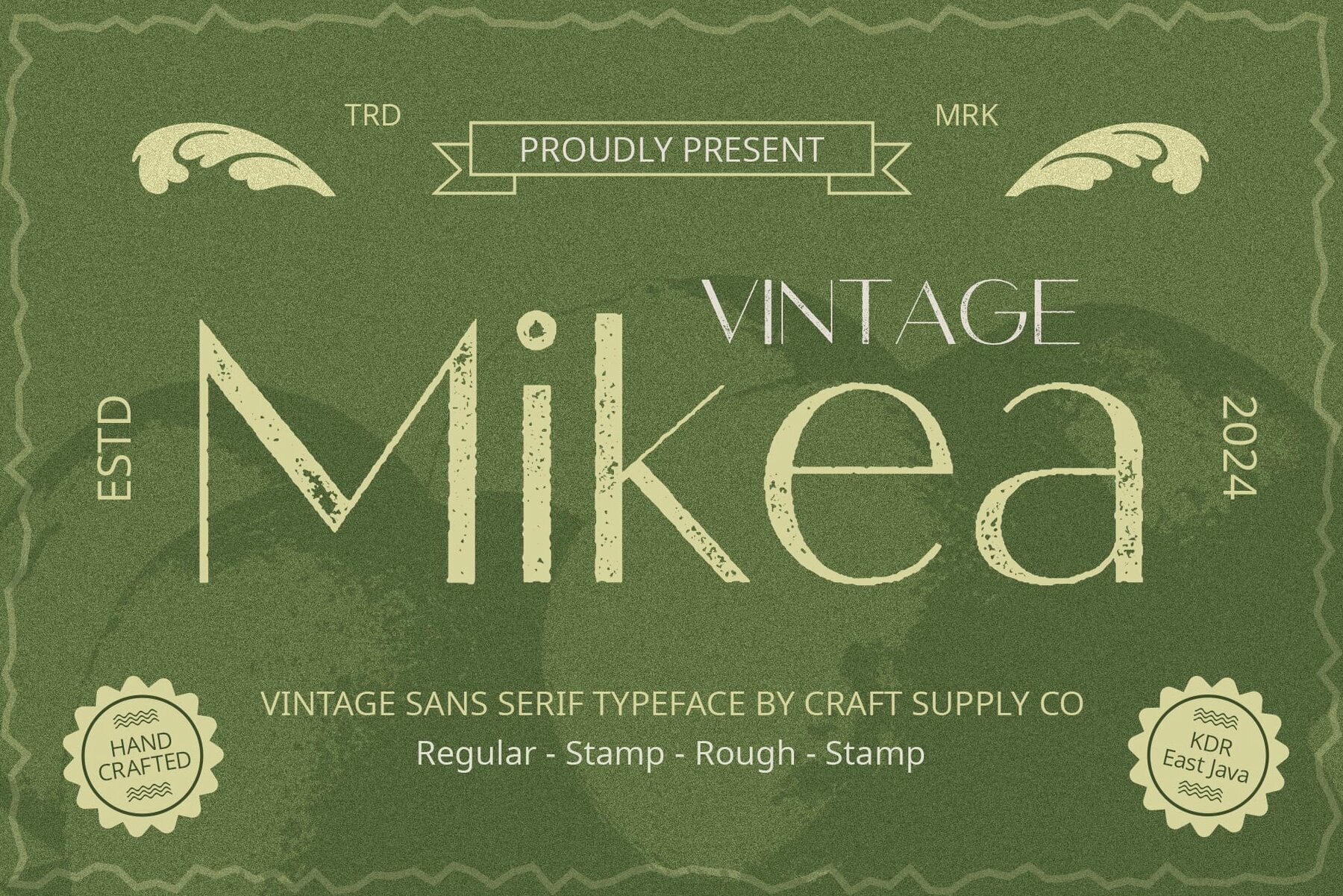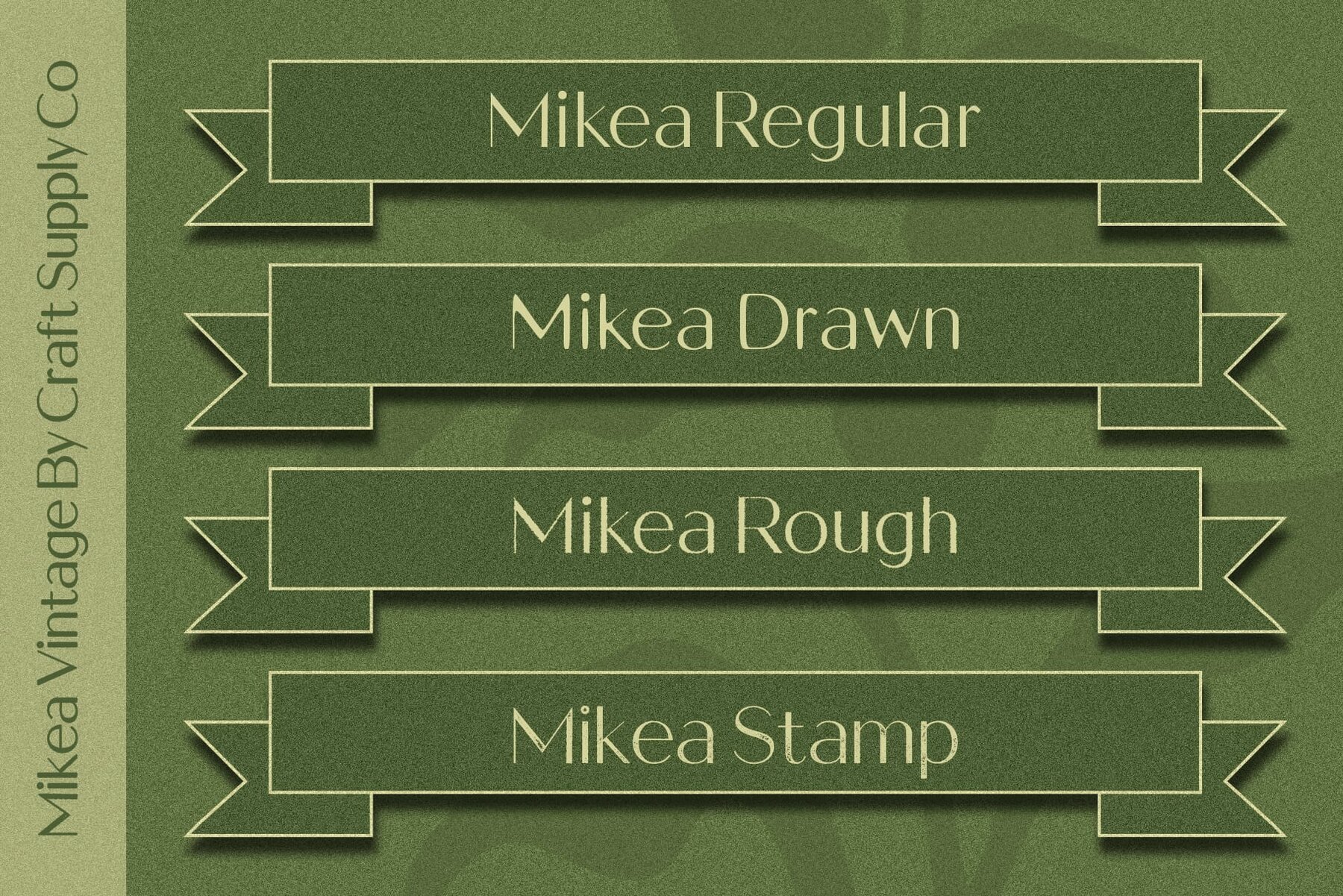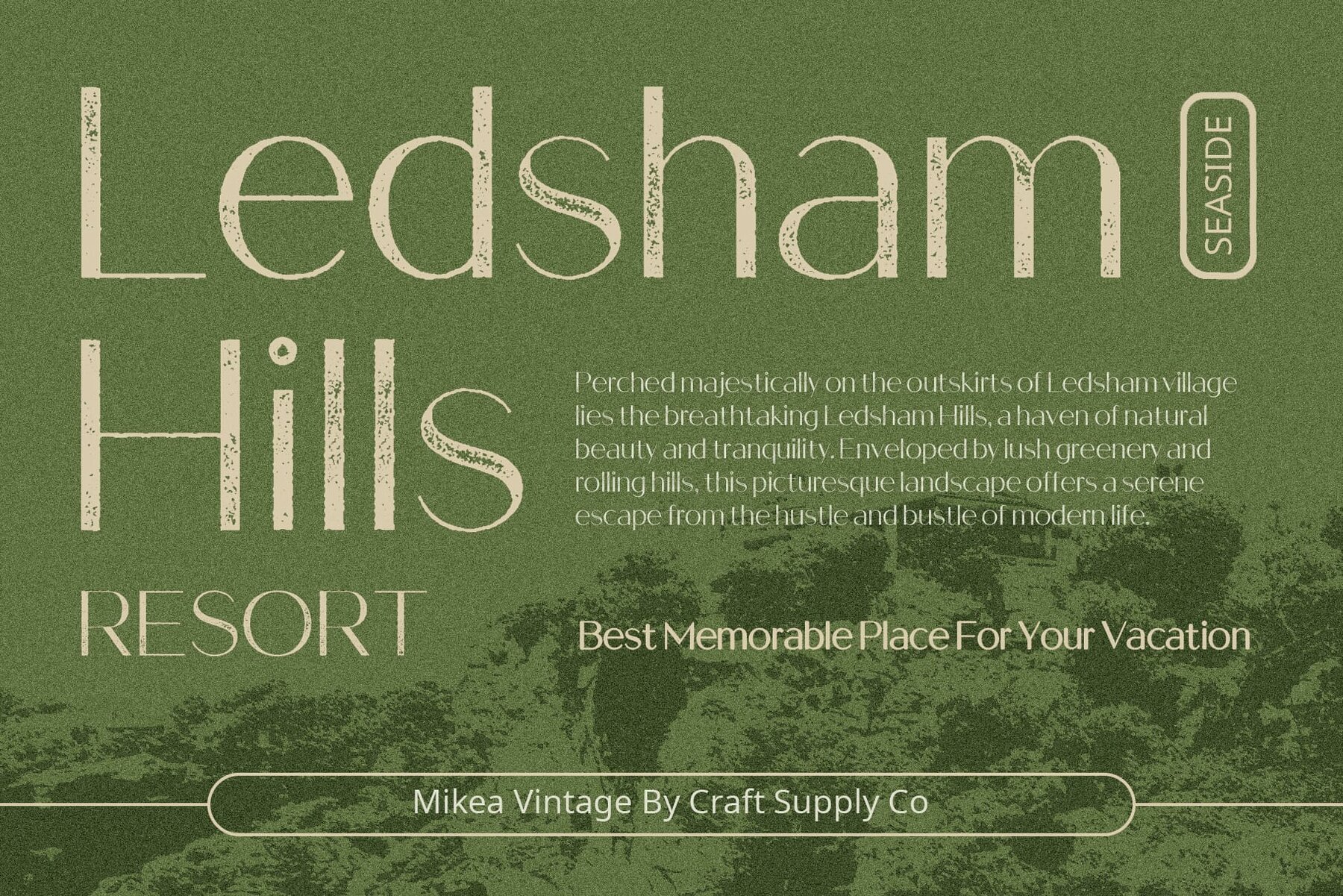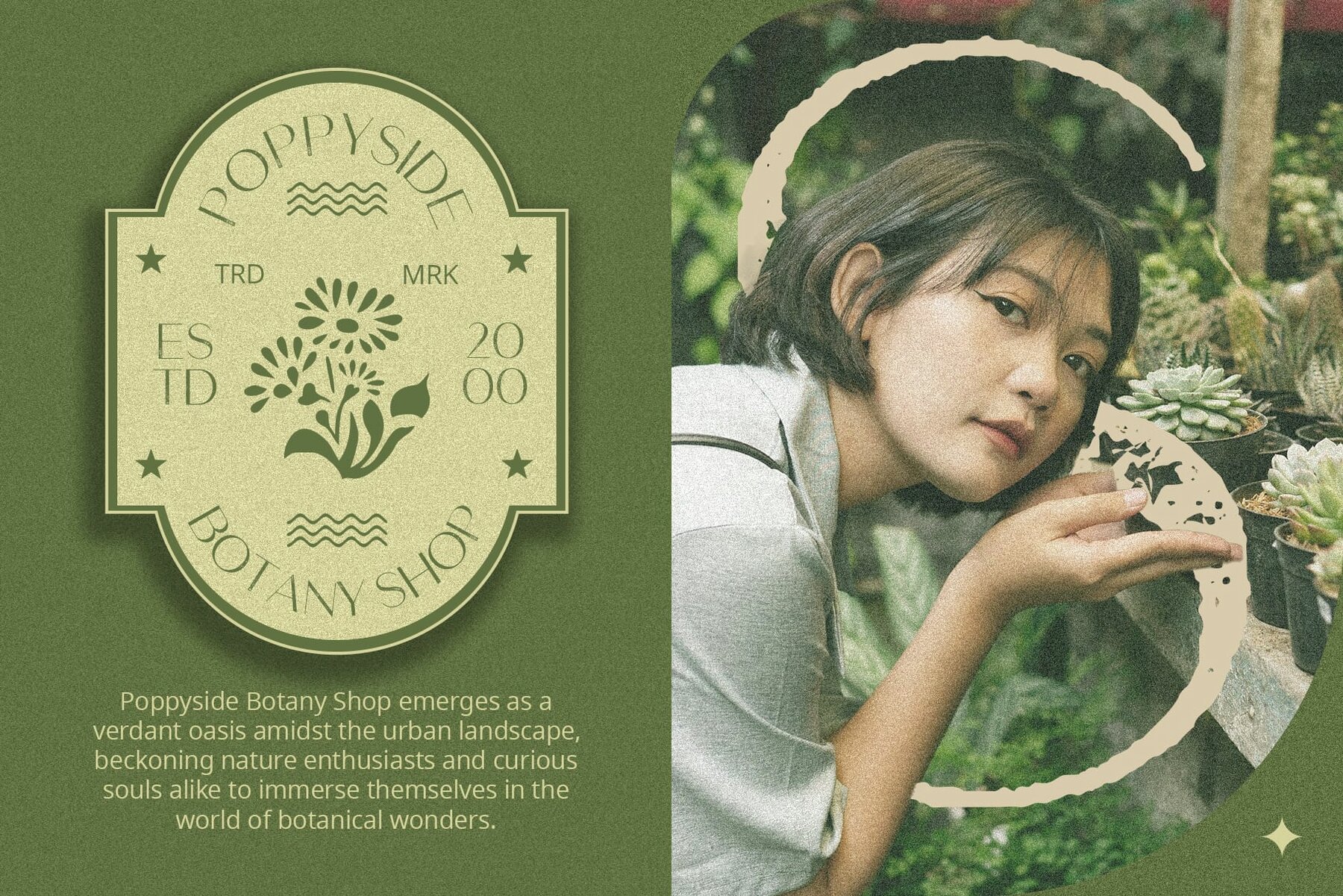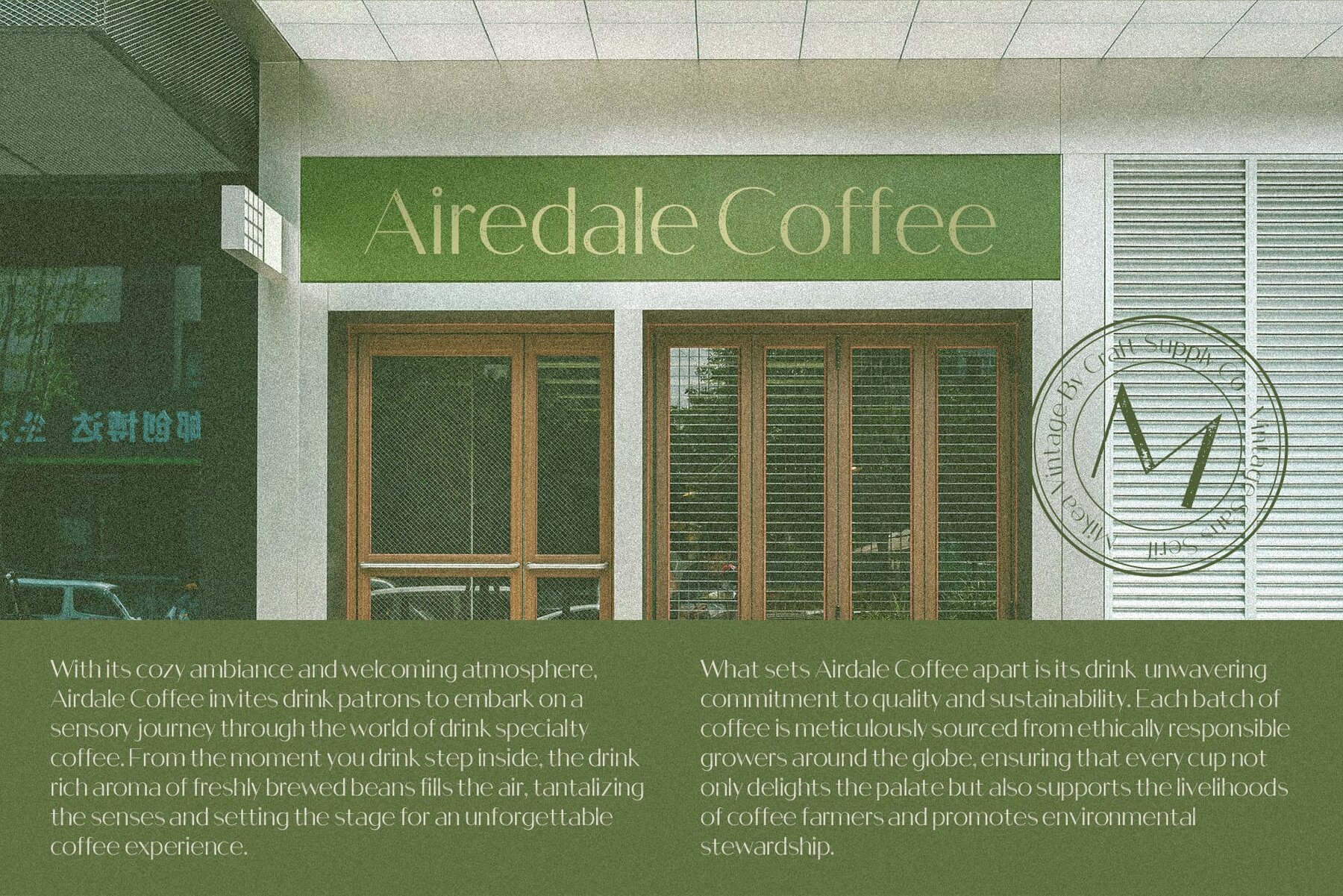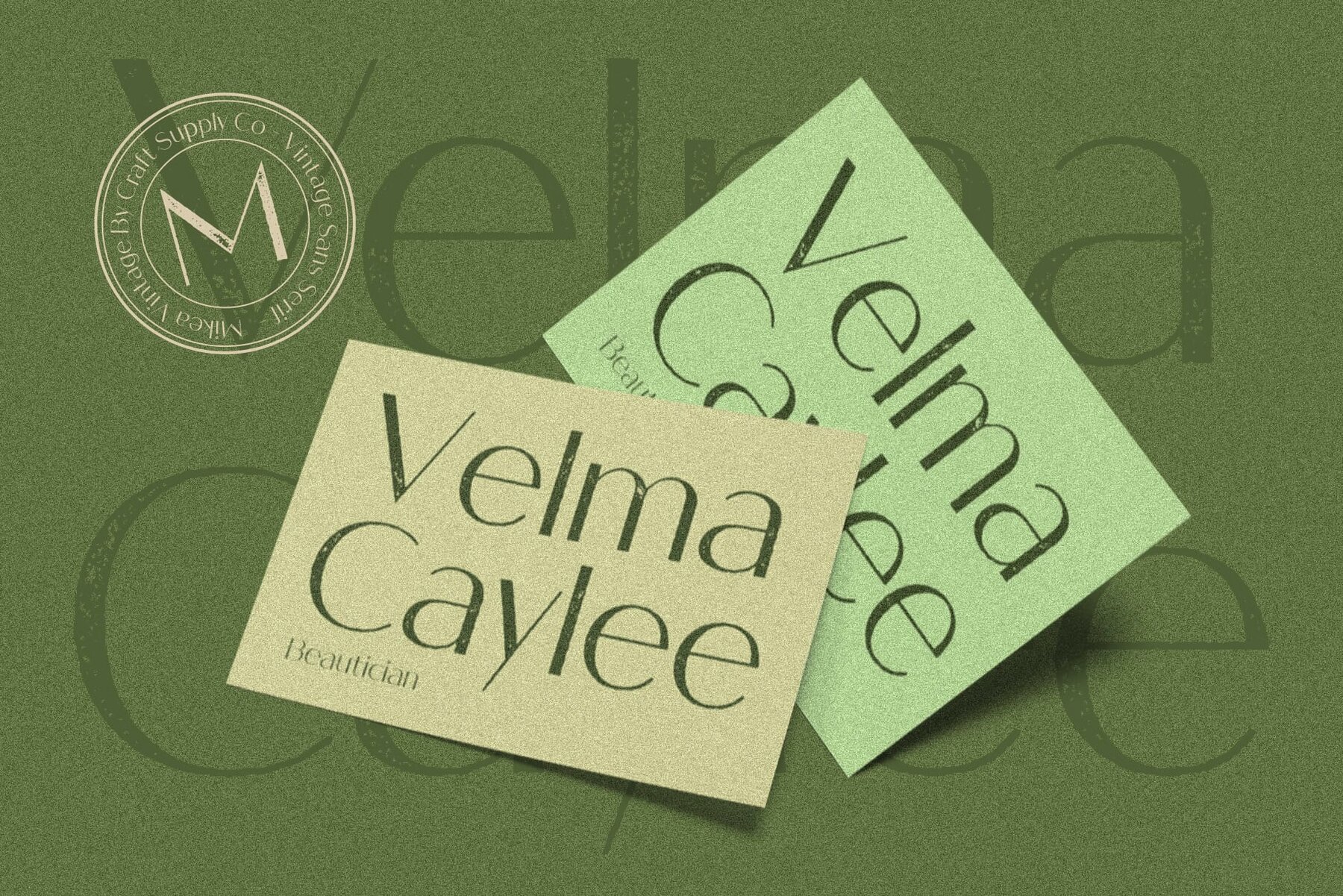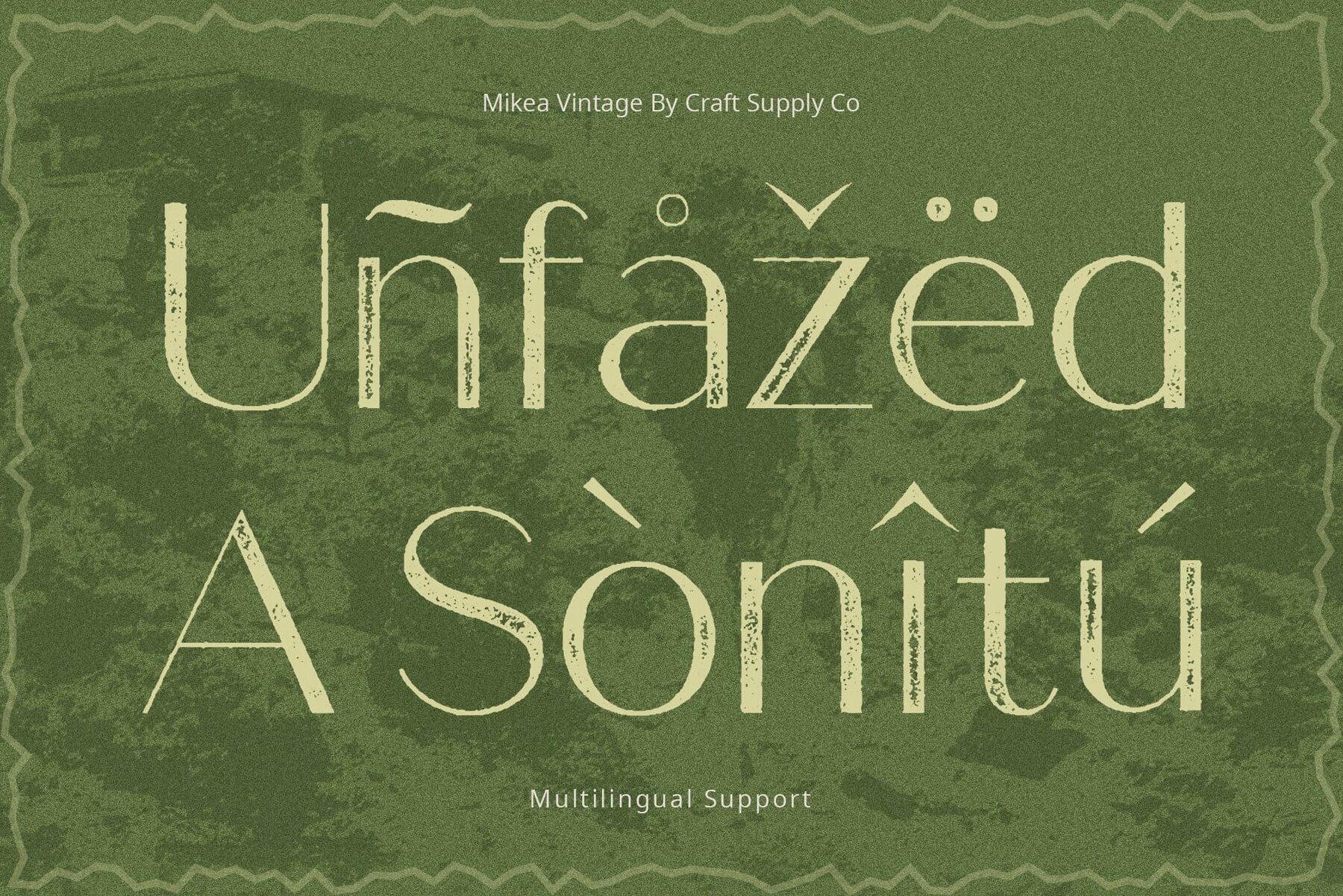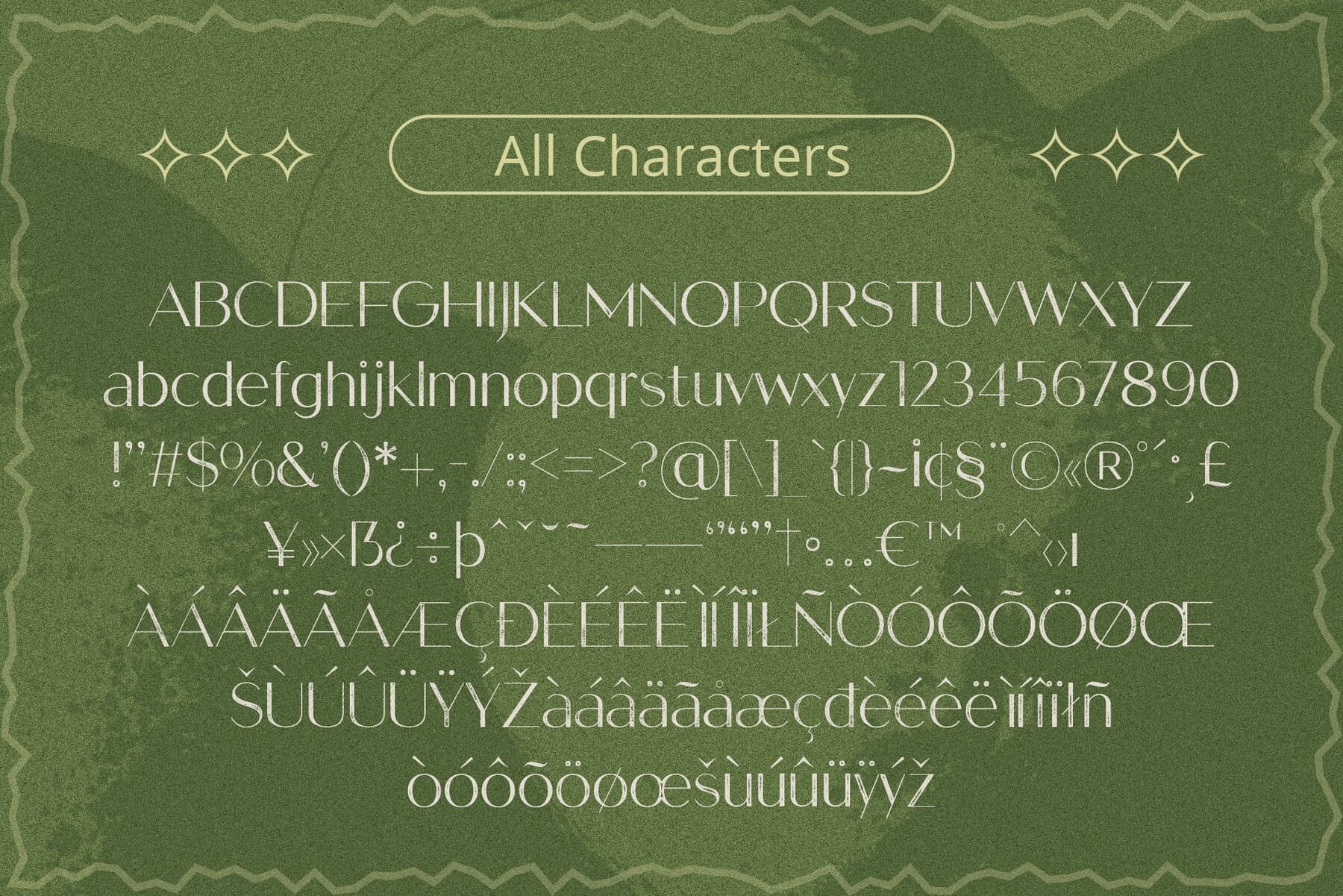
Mikea Vintage Font
Mikea Vintage offers a unique blend of high-contrast sans serif style with bold contrasts and sleek, modern shapes, making it stand out from traditional typefaces. Featuring stamp rough grunge effects, Mikea Vintage combines a vintage aesthetic with a modern edge, perfect for capturing attention in design projects. This font seamlessly blends into various design contexts from branding to editorial layouts, ensuring longevity and relevance in your projects. Mikea Vintage exudes sophistication and charm with its high contrast, modern shapes, and vintage-inspired details, creating an effortlessly elegant look. This typeface offers the best of both worlds: vintage charm and modern sophistication, making it ideal for designers seeking timeless elegance with contemporary flair. No specialized software is needed to utilize this typeface. For any inquiries or assistance, please don't hesitate to get in touch. We appreciate your support in making your creative projects shine!Mikea Vintage: A Modern Twist on Vintage Typography
Vintage Appeal with Modern Flair
Versatile and Timeless
Effortless Elegance
Perfect Blend of Past and Present